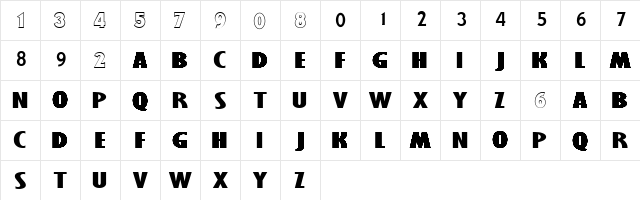
Russell-ORBNumbers Regular
Design Context for Russell-ORBNumbers Typeface
Russell-ORBNumbers takes a measured approach to typography — its balanced proportions and neutral character make it a reliable workhorse for both digital and print work.
Pro Tip: Use Russell-ORBNumbers in both headline and body roles to test its range before committing to a single application.